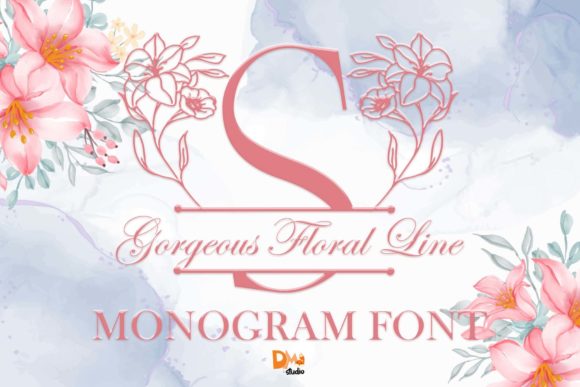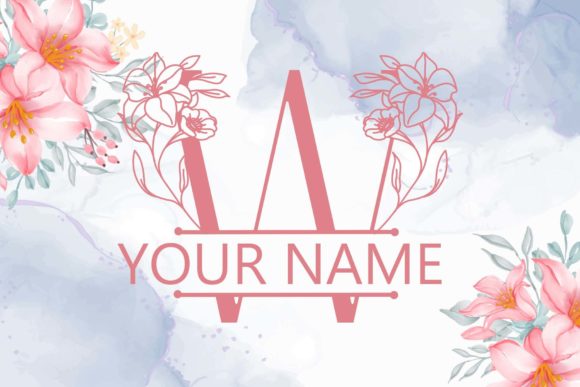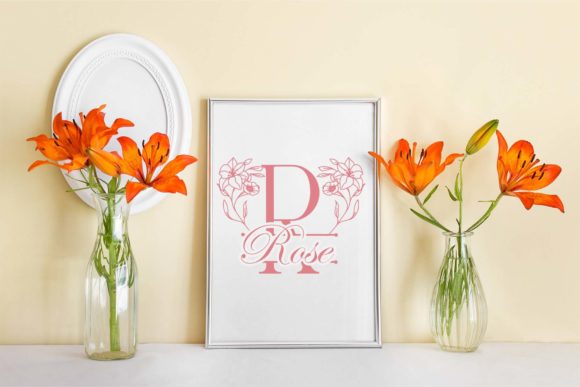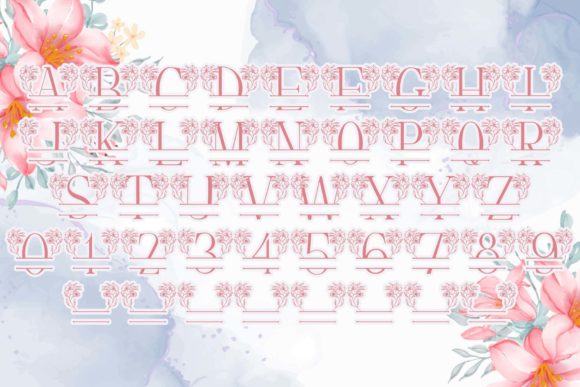
Gorgeous Floral Line Monogram Font
About the Gorgeous Floral Line Monogram Font
Crafted with precision, the Gorgeous Floral Line Monogram Font is ready to bring your ideas to life. Gorgeous Floral Line Monogram is a dainty and unique decorative font. Add this romantic and lovely looking font to each of your love letters, wedding invitations or favorite design ideas, and you will be astounded by the outcome.
Its delicate nature makes it ideal for projects requiring a touch of elegance and romance, such as wedding stationery, branding for boutiques, or packaging for luxury products. Use it sparingly; it excels in headlines, short text blocks, and as a decorative element rather than large bodies of text. Avoid using it for body copy or UI elements where readability is paramount.
Gorgeous Floral Line Monogram pairs well with clean sans-serif fonts like Helvetica or Open Sans for a sophisticated contrast, or with a classic serif like Garamond or Times New Roman for a more traditional feel. A simple script font could add a layer of refined detail, but should be used with restraint to avoid visual clutter.
The font’s core personality is undeniably feminine and romantic, conveying a sense of delicate beauty and timeless charm. Its decorative flourishes are best suited to projects that celebrate love, luxury, or handcrafted artistry.
Gorgeous Floral Line Monogram Font Example